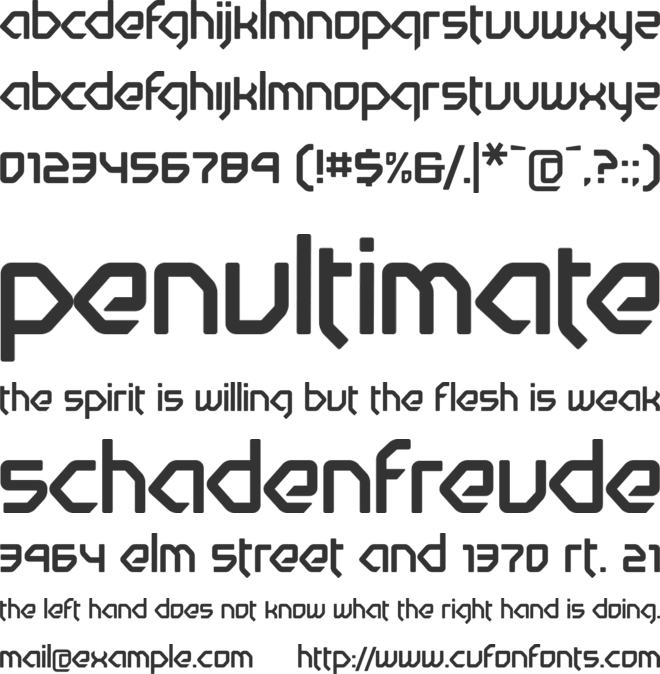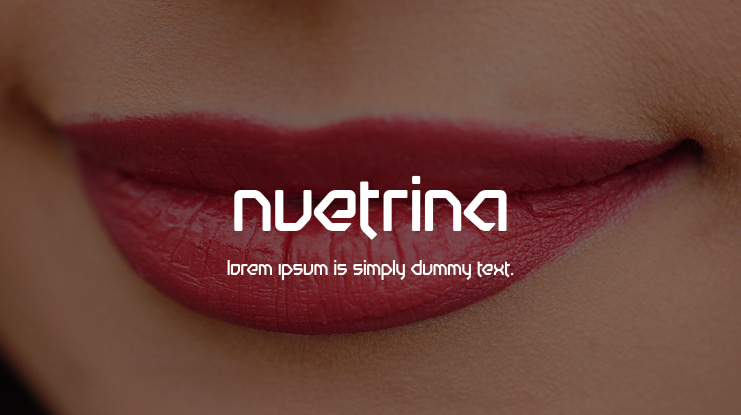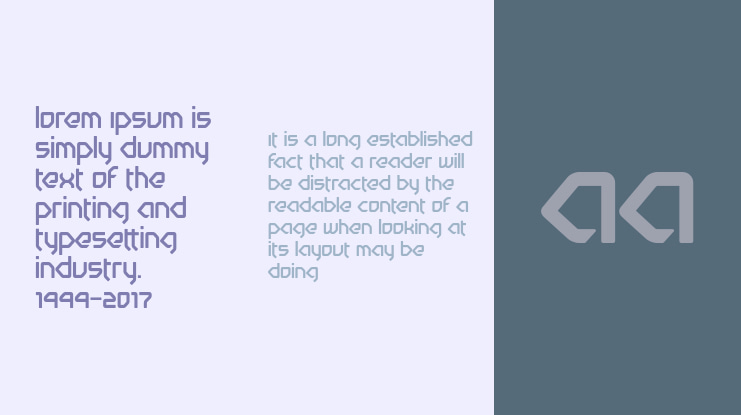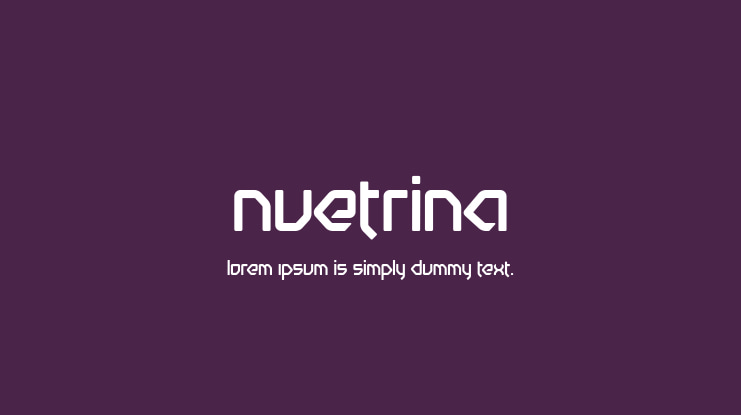
The first characters from Nuetrina came from a logo design I did for a client. It wasn’t chosen as the logo. Oh well. I decided to build out the entire alphabet. Before I knew it an entire display typeface was created. It’s lower case only. Sorry, no shouting with this one. Works well for logos, headlines and short passages of copy.